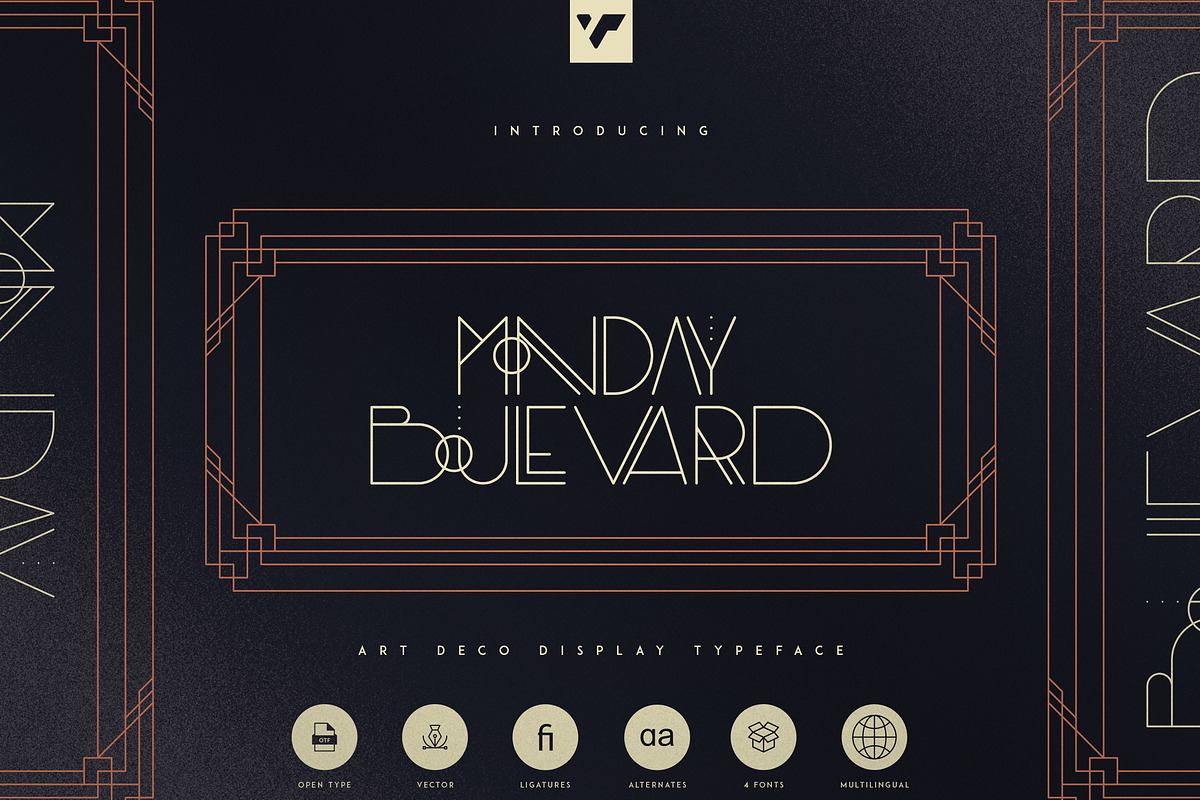
Monday Boulevard - Art Deco Typeface Free Download
Monday Boulevard – Art Deco Typeface Free Download is a luxurious and elegant font inspired by the timeless Art Deco movement. With its geometric shapes, sharp lines, and sophisticated flair, it's perfect for upscale branding, fashion designs, event invitations, and vintage-inspired projects. Please note that you must purchase this font for commercial use, but it is available as a free download for testing purposes. Elevate your designs with the glamour and style of Monday Boulevard – Art Deco Typeface Free Download, and bring a touch of vintage luxury to your typography.